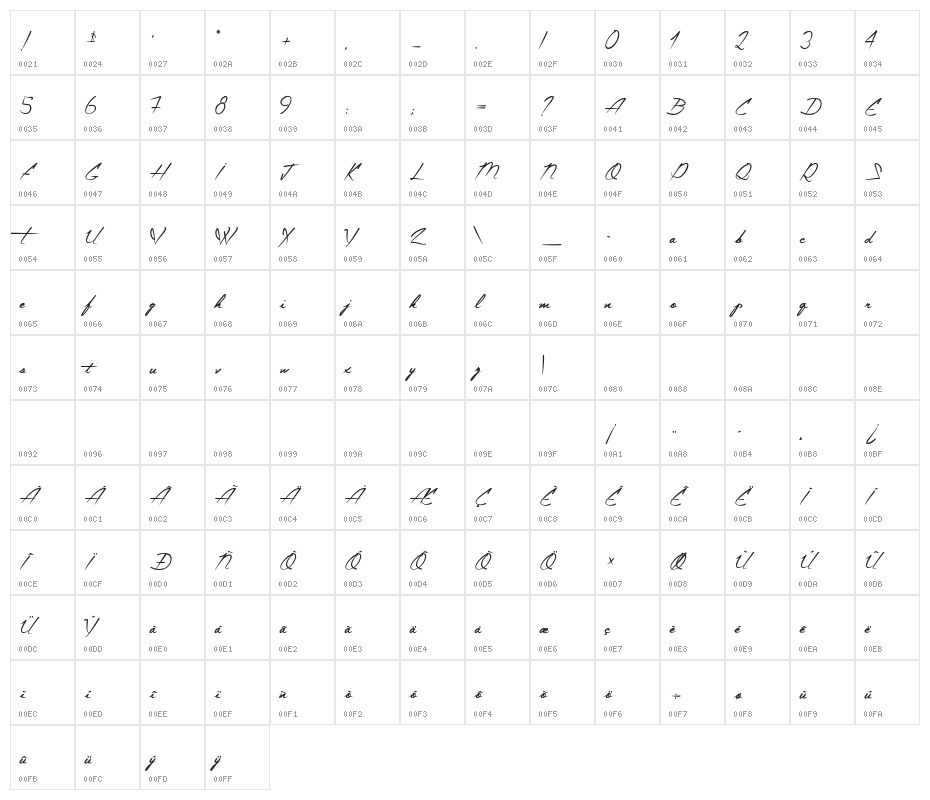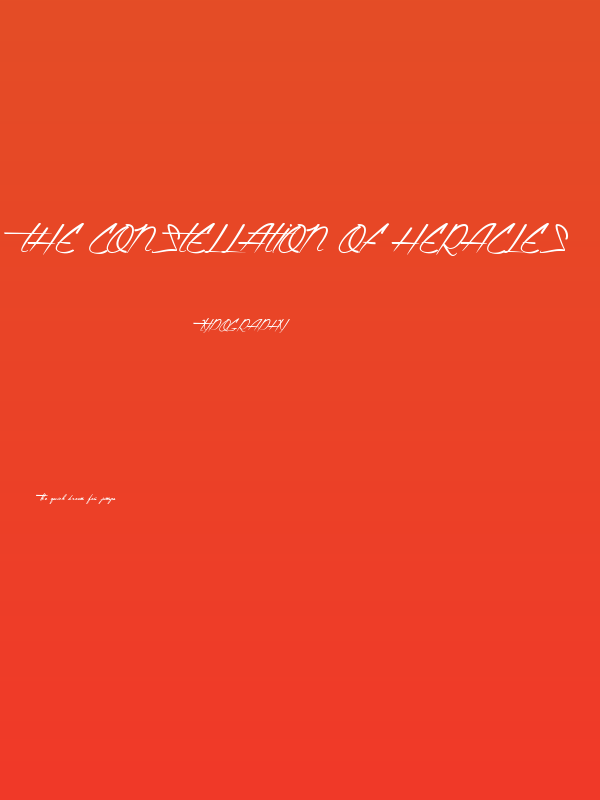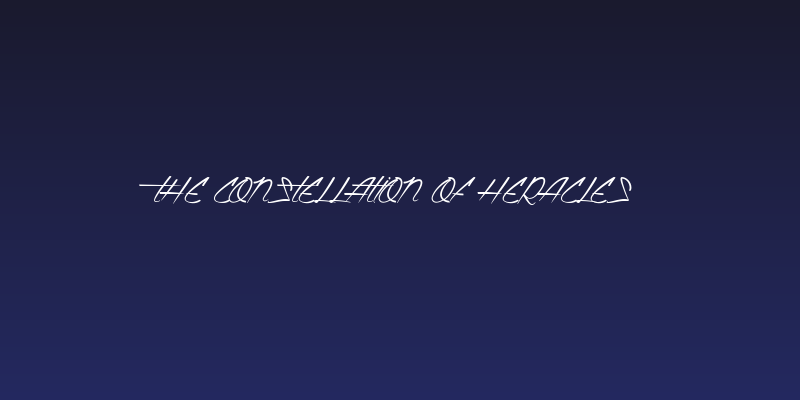
The Constellation of Heracles Font
The Constellation of Heracles Description
This font exhibits a dynamic and fluid script style, characterized by its elegant and flowing letterforms. The uppercase letters are bold and sweeping, with a distinctive slant that adds a sense of movement and grace. The lowercase letters maintain a cohesive flow, complementing the uppercase with their smooth curves and connected strokes. Numbers are consistent with the script style, offering a harmonious blend with the alphabet. The special characters retain the same fluidity, ensuring a uniform appearance across all glyphs. This font's overall aesthetic is both sophisticated and artistic, making it suitable for a variety of creative applications.
| Overall Style | Elegant, Artistic |
| Use Case | Logos, Invitations, Artistic Projects |
| Proposed Projects | Ideal for wedding invitations, elegant branding, artistic posters, and personal stationery. |